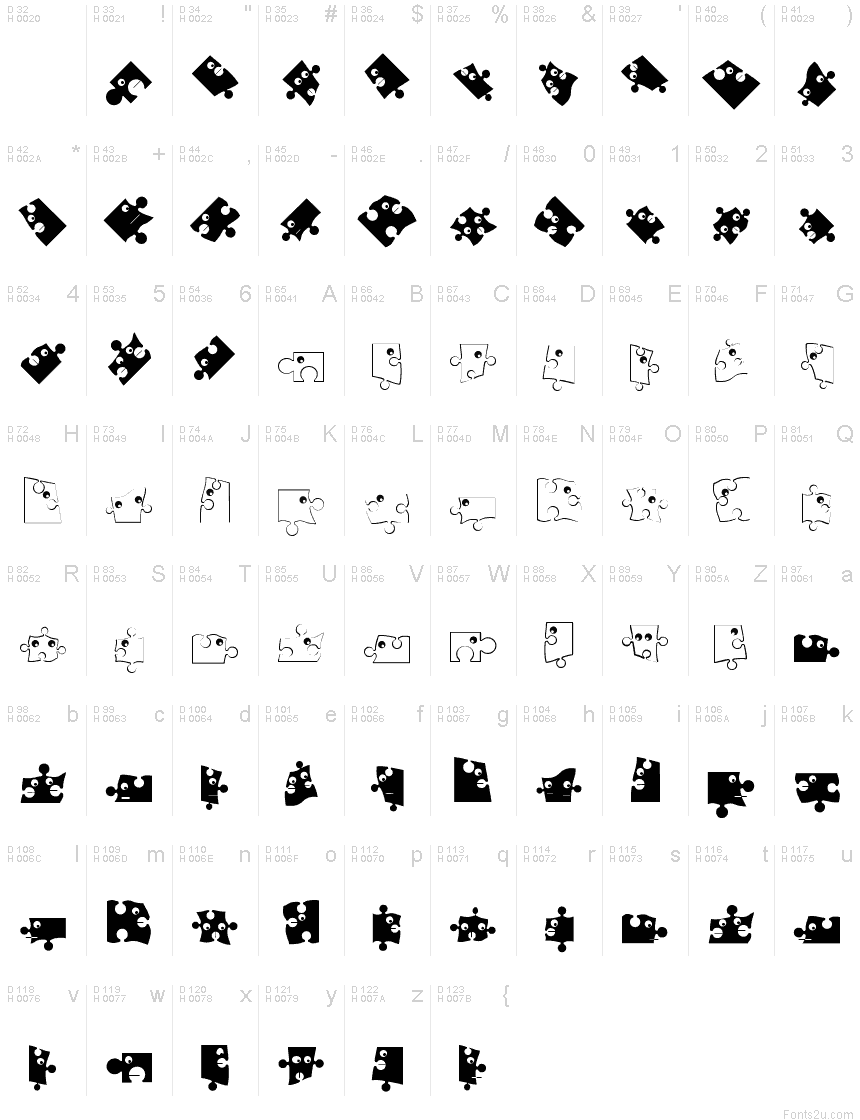
PuzzleParts by Manfred Klein is a free puzzle-piece dingbat font built from chunky, interlocking shapes. Rounded tabs and cutouts recur throughout, and small circular marks give several symbols face-like expressions. Slightly uneven outlines give the simple geometry an informal, hand-drawn finish.
A children's activity book is its most convincing setting, with the symbols serving as clues, markers, and spot illustrations. They also suit game packaging, classroom materials, and teamwork posters.